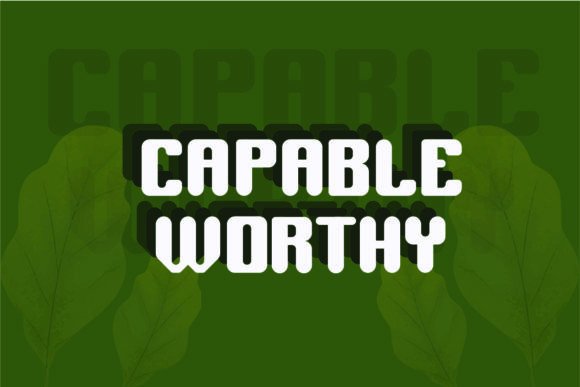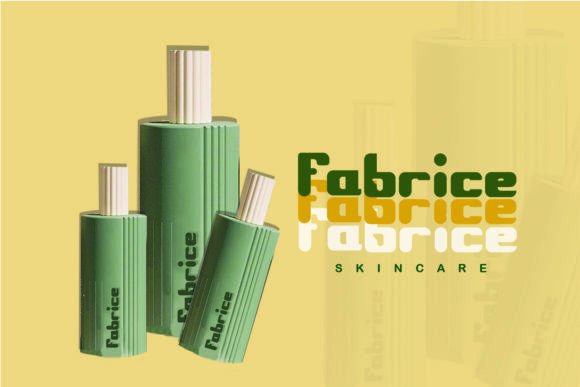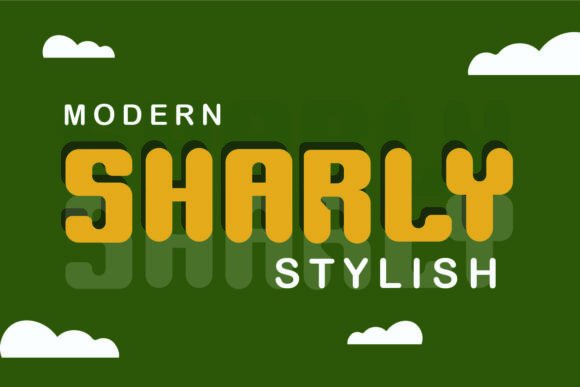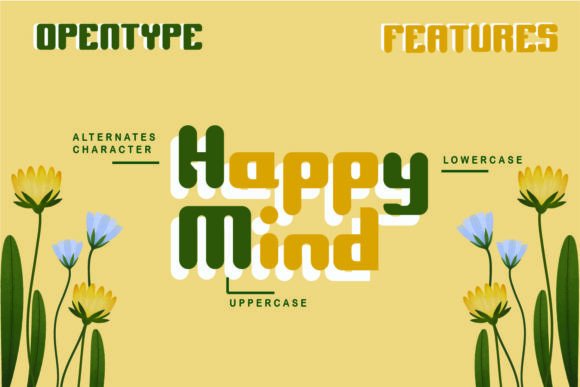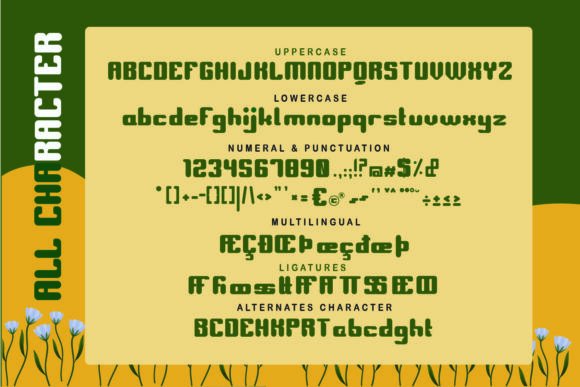
Barnabus Font: Elevate Your Designs with a Bold and Creative Display Font
In the world of typography, a font can make or break a design. For designers and crafters looking to add a touch of uniqueness and personality to their projects, the Barnabus font is an excellent choice. This bold and creative display font is designed to make a statement, and its versatility makes it perfect for a wide range of applications.
What is Barnabus Font?
Barnabus is a carefully crafted display font that boasts a distinctive style, setting it apart from more traditional fonts. Its bold and creative design makes it an ideal choice for projects that require a bit of flair and personality. Whether you’re working on invitations, greeting cards, branding materials, business cards, quotes, posters, or more, Barnabus is sure to make your design stand out.
Key Features of Barnabus Font
- Unique Style: Barnabus features a one-of-a-kind design that will add a touch of sophistication and elegance to your projects.
- Bold and Creative: This font is perfect for designers and crafters who want to make a statement with their designs.
- Versatile: Barnabus can be used for a wide range of projects, from invitations and greeting cards to branding materials and posters.
- Easy to Read: Despite its bold design, Barnabus is easy to read, making it perfect for quotes, posters, and other projects where legibility is key.
Uses for Barnabus Font
One of the best things about Barnabus is its versatility. Here are just a few ideas for projects where this font can shine:
- Invitations: Whether you’re planning a wedding, birthday party, or other special event, Barnabus is a great choice for invitations.
- Greeting Cards: Add a touch of personality to your greeting cards with Barnabus.
- Branding Materials: Use Barnabus to create eye-catching branding materials, such as logos, brochures, and more.
- Business Cards: Stand out from the crowd with Barnabus on your business cards.
- Quotes and Posters: Barnabus is perfect for creating inspiring quotes and posters that will grab attention.
Tips for Using Barnabus Font
To get the most out of Barnabus, here are a few tips:
- Use it Sparingly: While Barnabus is a beautiful font, it’s bold and should be used sparingly to avoid overwhelming the reader.
- Pair it with Other Fonts: Experiment with pairing Barnabus with other fonts to create a unique and interesting design.
- Adjust the Size: Don’t be afraid to adjust the size of Barnabus to create visual interest and hierarchy in your design.
In conclusion, Barnabus is a bold and creative display font that is sure to elevate your designs. Its unique style, versatility, and ease of use make it a great choice for designers and crafters looking to add a touch of personality to their projects. Whether you’re working on invitations, greeting cards, branding materials, or more, Barnabus is a font that will help you stand out from the crowd.